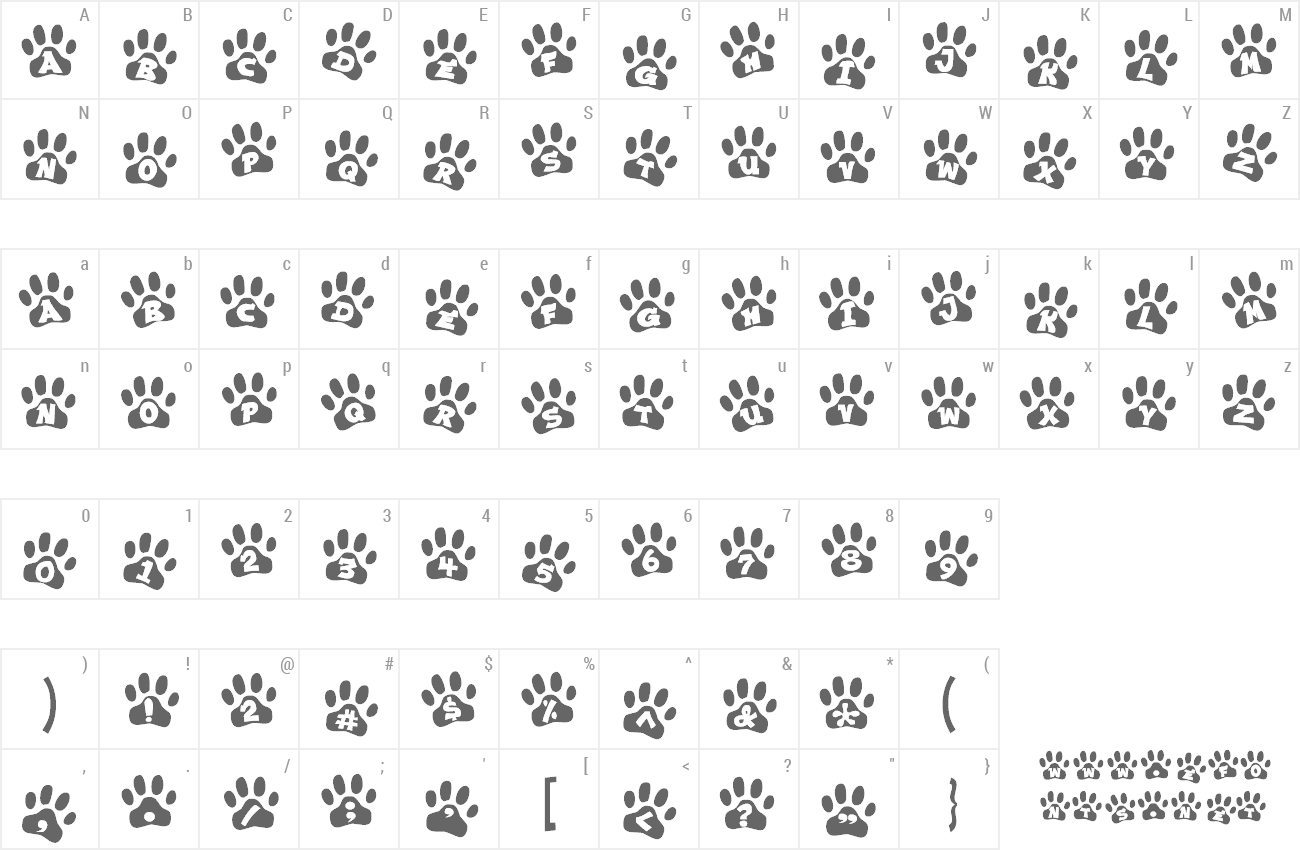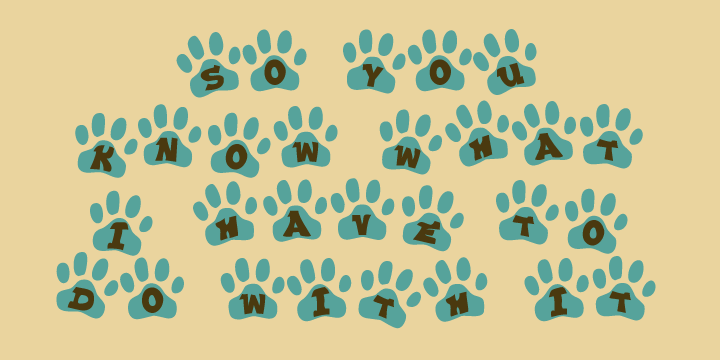
Ennobled Pet, created in 1999, resembles a pet’s paws after taking a walk through an old fashioned print shop. This font includes a license that allows free commercial use: sometimes referred to as a desktop license. This allows you to install the font on a computer and use it to create posters, web graphics, game graphics, t-shirts, videos, signs, logos and more. Read the license agreement for details. If you'd like to embed this font in an app, ebook, on the web or anything that's not covered by the desktop license agreement, visit the link below. You'll find distributors who offer different types of licenses or you can contact me for help. http://typodermicfonts.com/ennobled-pet/ |